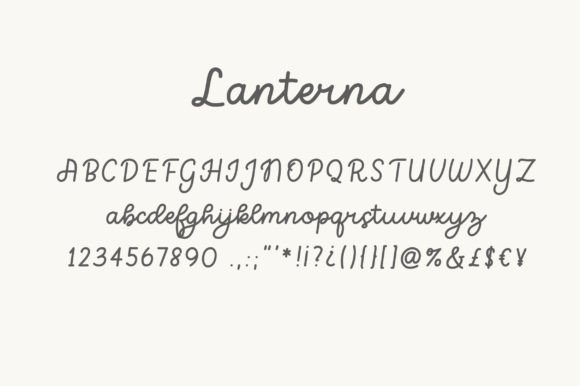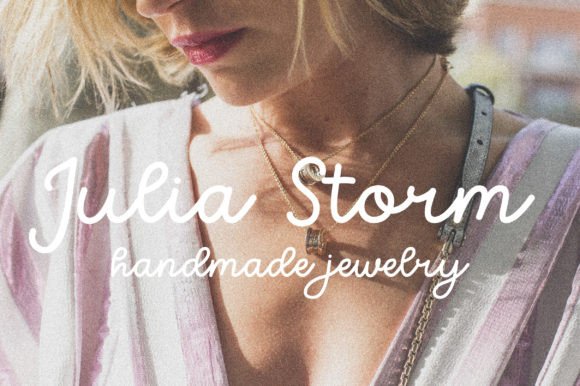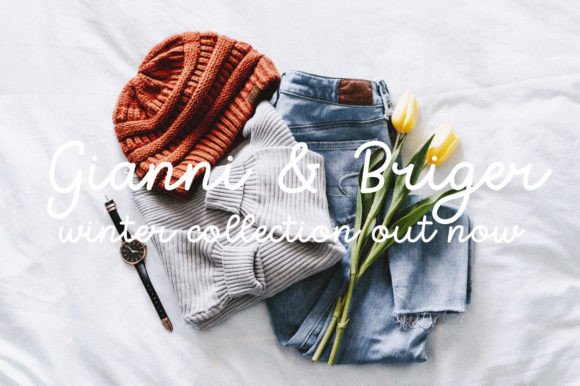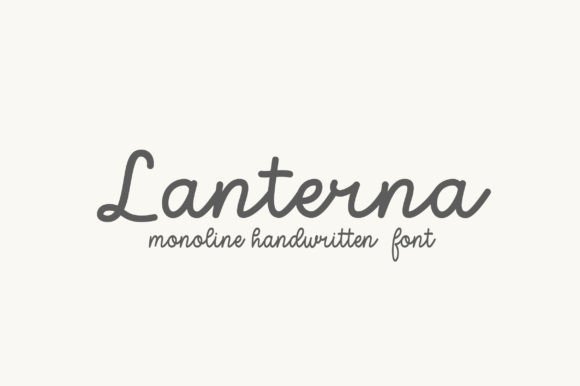
Introduction to Lanterna Font
Lanterna is a bold and brave monoline cursive font.
Best used for crafting projects, social media graphics, apparel design, product design, and branding .